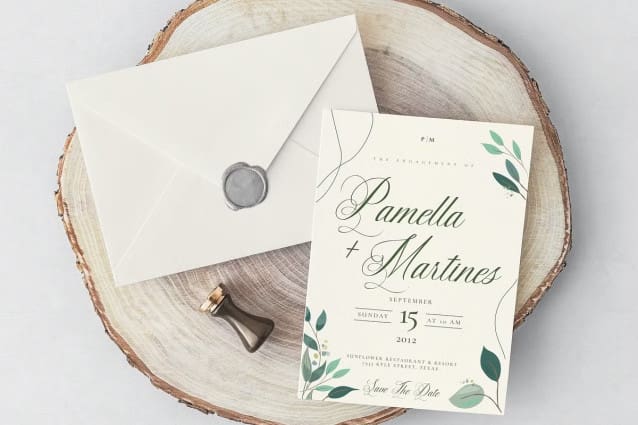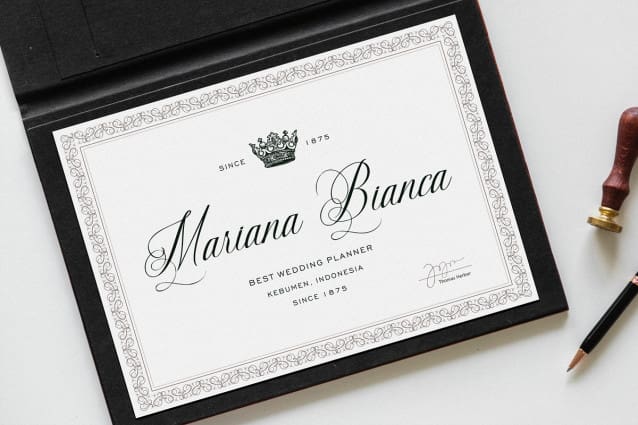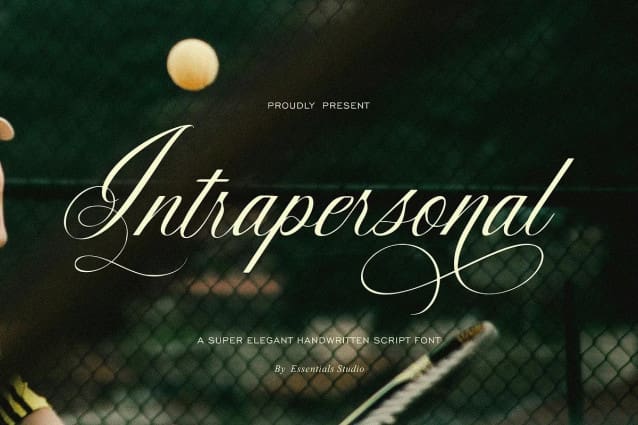
Intrapersonal Font
Intrapersonal Font: a captivating script font meticulously crafted by Essentials Studio. Every detail is conceptualized to encapsulate a sense of elegance unique to its design. Brought to life for purposes beyond the ordinary, Intrapersonal shines in arenas of branding, logo design, and wedding invites. It’s even the perfect choice for product packaging or to simply add a touch of sophistication to any backdrop. With Intrapersonal Font, let every word you write embody an authentic touch of grace and class. Experience the distinct allure of Intrapersonal and let your creativity soar.